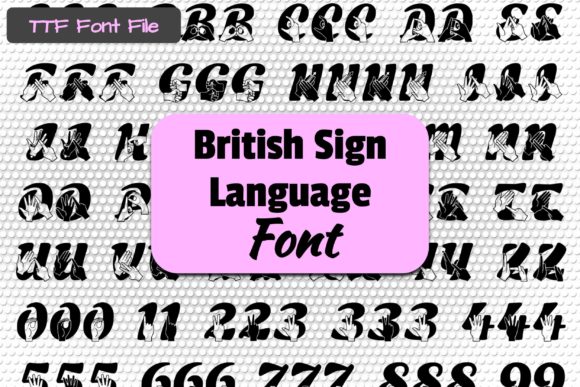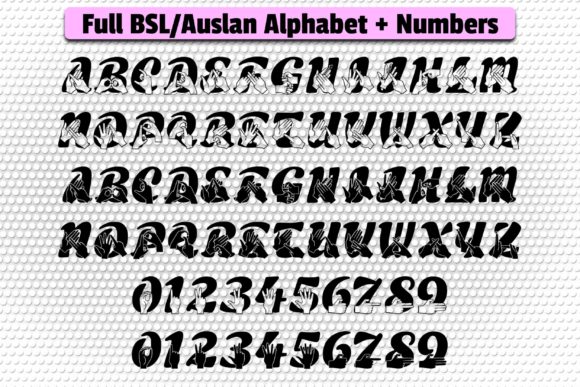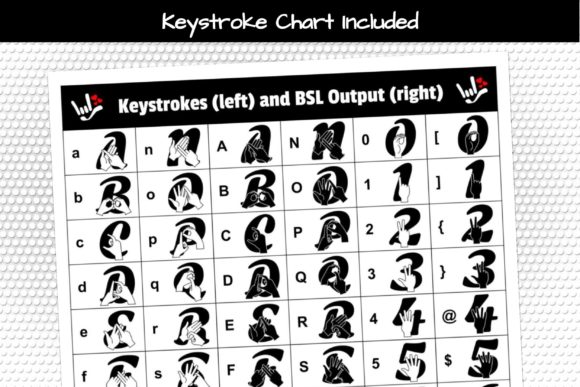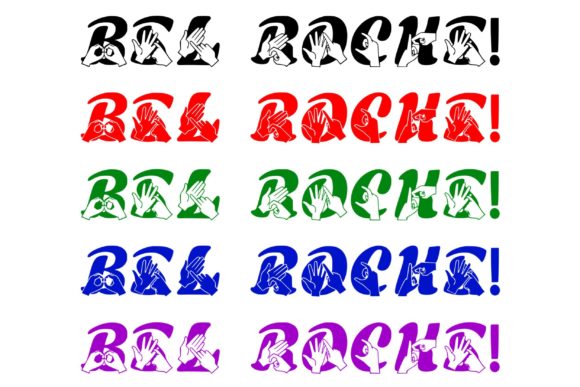
About Able Lingo BSL 3 Font
Able Lingo BSL 3 is not your ordinary decorative font—it is a unique and inspiring typeface that draws its inspiration from the rich and expressive language of British Sign Language (BSL). This font is a visual representation of the beautiful gestures and movements used in BSL, and it brings a captivating and inclusive element to any creative project.
With Able Lingo BSL 3, you have a font that goes beyond just letters and characters. Each symbol in this font is meticulously designed to reflect the graceful and meaningful gestures of BSL. From simple hand shapes to intricate movements, the font captures the essence and beauty of sign language, adding a touch of uniqueness and fascination to your designs.
The versatility of Able Lingo BSL 3 makes it an excellent choice for a wide range of creative projects. Whether you’re designing a poster, creating a logo, or working on a digital artwork, this font will instantly grab attention and engage viewers. It adds an intriguing and visually appealing element that sets your designs apart from the crowd.
Moreover, Able Lingo BSL 3 is more than just a font—it’s a celebration of inclusivity and communication. By incorporating this font into your projects, you promote awareness and appreciation for British Sign Language and the deaf community. It serves as a powerful reminder of the diverse ways we can express ourselves and connect with others.
Adding Able Lingo BSL 3 to your favorite designs is like giving them a new dimension. Whether you’re working on educational materials, social media graphics, or even personal artwork, this font will infuse them with a sense of curiosity and intrigue. It invites viewers to explore and engage with the design on a deeper level, creating a lasting impression.
So, don’t miss out on the opportunity to incorporate the beauty and significance of British Sign Language into your creative endeavors. Let Able Lingo BSL 3 be the transformative element that makes your designs captivating and meaningful. Add this font to your collection and experience how it brings a whole new level of interest and appeal to your favorite projects.